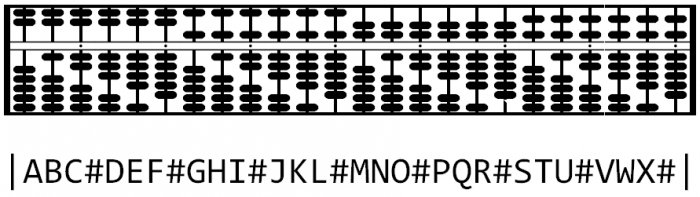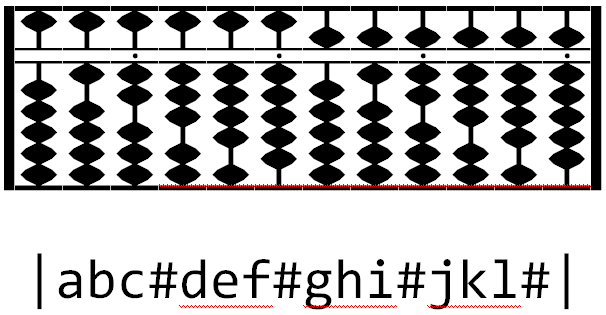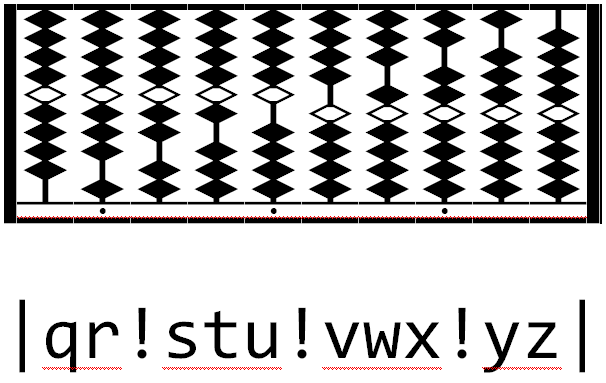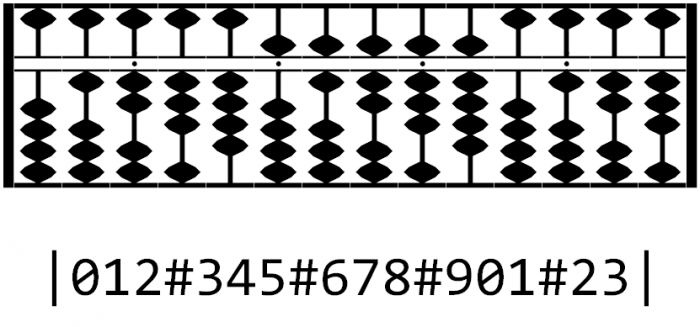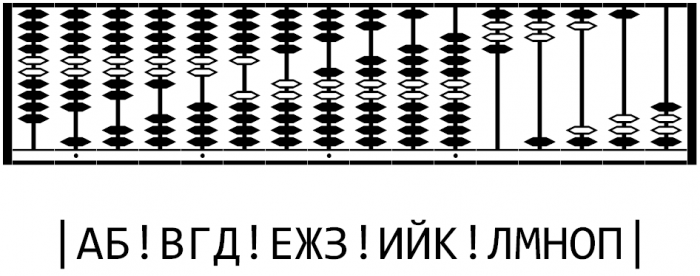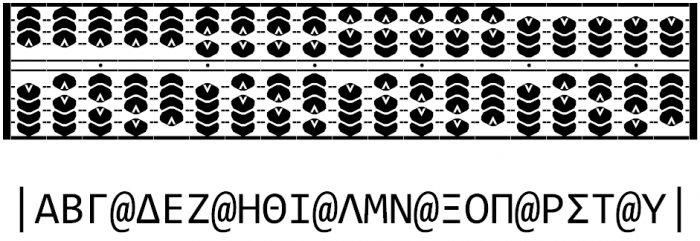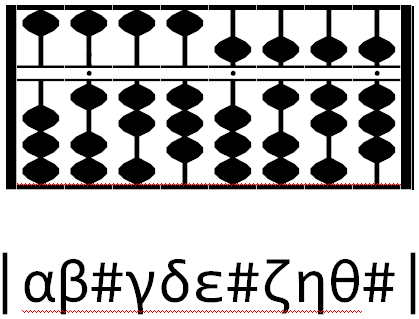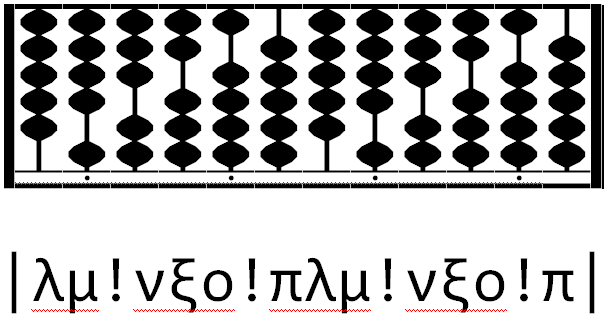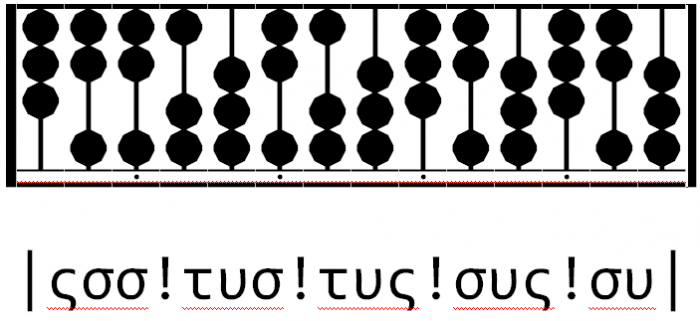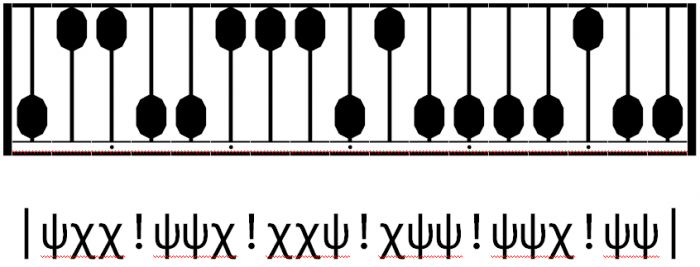
• Abakus FS, a font that allows ample abacus representation.
Uppercase Latin is the suanpan, the Chinese abacus. The extra beads give it some more computational power, especially in multiplication and division. Letters STUVWX show the suspended bead technique, which extends the suanpan even further.
Lowercase Latin a-l show the older Japanese model with five lower beads, a transition between the suanpan the the soroban used today. If you imagine its heaven bead as having a value of six instead of five, it also works as a duodecimal abacus.
Latin lowercase q-z shows the chortkeh, the Persian abacus, containing nine beads per rod, each bead with a value of one. It is the most straightforward abacus for the decimal number system, good for those who are confused by earth and heaven beads of East Asian models. Since its reckoning bar is on the bottom of the frame, the unit rod marker dot is the ! character.
Numbers 0-9 will produce the Japanese soroban, the most common abacus today. The vertical bar | is used to draw the edges, while # will mark the previous rod with a dot on the reckoning bar, marking the unit rod.
Cyrillic uppercase results in the schoty, the Russian abacus. With ten beads per wire, it was widely used in Soviet Union shops until the 1970's. Letters ЛМНОП show the quarter ruble rod with only four beads.
Uppercase Greek shows the nepohualtzintzin, the Mesoamerican abacus. Made of maize seeds on horizontal wires, the seeds tumble back and forth toward the reckoning bar. It uses a vigesimal number system. The unit place marker is @.
Lowercase Greek has a number of small number base abaci. Alpha to theta is an octal abacus with a middle reckoning bar: the heaven bead has a value of four.
Lambda to pi is a senary abacus. In senary numbers all prime numbers bigger than 3 end in 1 or 5.
Final sigma to upsilon is a quaternary abacus. The DNA in the cells of living beings is essencially a quaternary system of information.
Chi and psi make a binary abacus. The binary number system is the basis of electronic computers everywhere.
Armenian uppercase from ayb to men is a vigesimal abacus in a more familian configuration of beads sliding in vertical rods. Like the nepohualtzintzin, its unit rod marker is @.
Armenian uppercase ra to oh shows the typical Japanese soroban, but active beads are black while inactive beads are white.